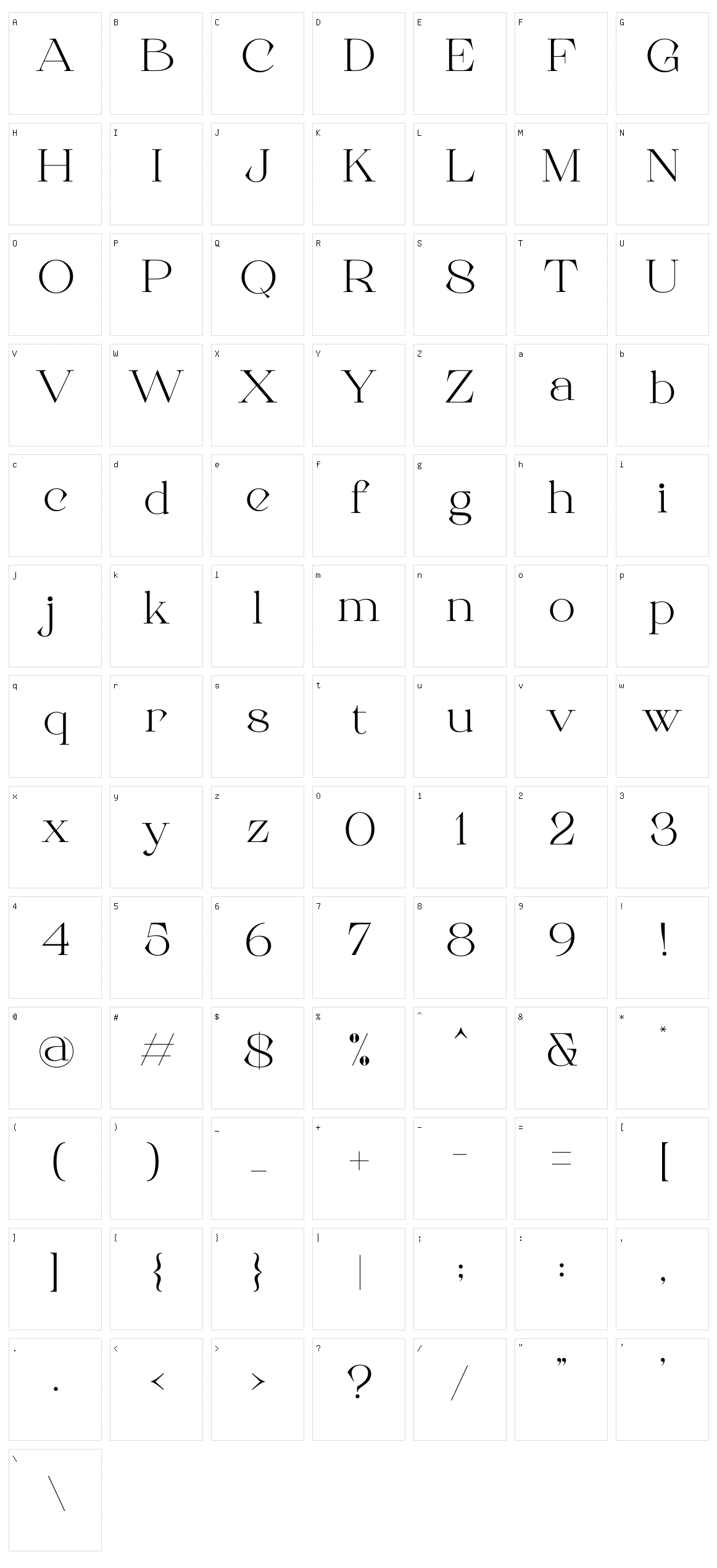
The free font Roman Sophisticated is carefully designed by BrandSemut, showcasing a thoughtful balance of creativity and usability and falls under the Serif font style. When you download the ZIP file, it contains only 18.5 KB of font files, making it lightweight and quick to download. Please review the license details below to understand permitted usage and distribution rights. If license information is not available, we recommend using this font for personal projects only or contacting the author directly for commercial usage permissions.